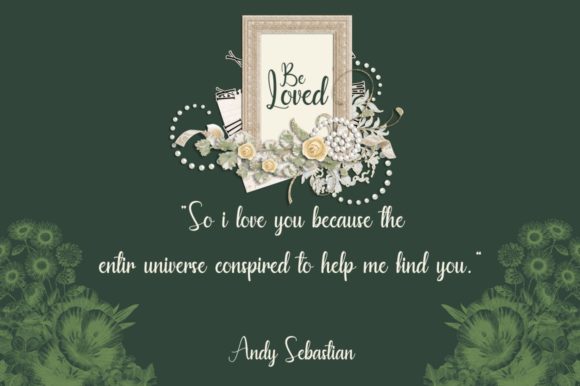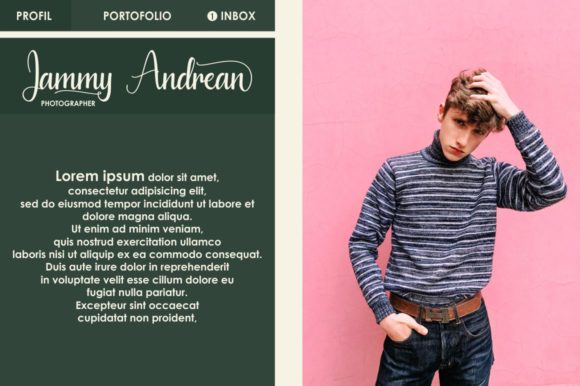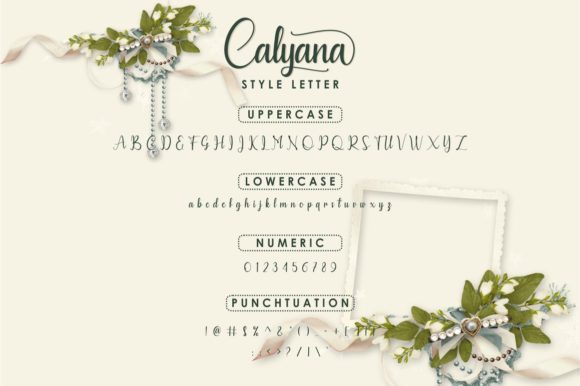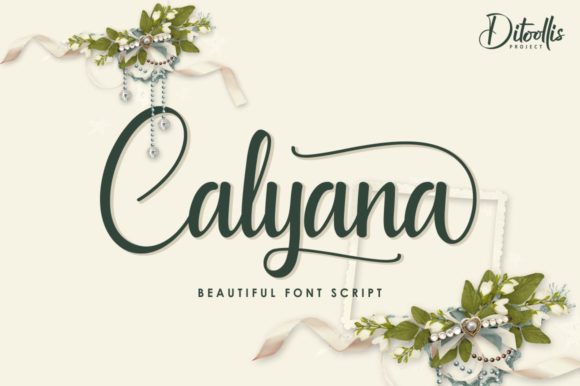
The Moment of Design Epiphany: When Calyana Font Stole My Heart
I still remember the project like it was yesterday. I was working on a wedding invitation design for a client who wanted something elegant, yet playful. I had spent hours browsing through font libraries, but nothing seemed quite right. That was when I stumbled upon Calyana Font. Its radiant script and authentic swashes immediately caught my attention, and I knew I had found the perfect fit. In this article, I’ll share my love for Calyana Font, its features, and how to make the most of it in your designs.
The Good: Why Calyana Font Stands Out
- ✨ Elegant script with authentic swashes that add a touch of sophistication to any design
- ✅ Highly versatile and suitable for various design projects, from wedding invitations to branding and packaging
- 💫 Beautifully crafted to ensure excellent readability, even at smaller font sizes
The Not-So-Perfect: A Few Quirks to Consider
- 🤔 Some users might find the font a bit over-the-top for certain projects, such as minimalist designs
- ⚠️ Limited availability of certain characters and glyphs in non-OpenType compatible software
The Story Behind Calyana Font: Designer Inspiration
Calyana Font was crafted with love and attention to detail by a team of skilled typographers. Their goal was to create a stunning script font that would evoke the feeling of luxury and sophistication. Inspired by traditional calligraphy and modern design trends, Calyana Font was born to add a touch of elegance to any design project.
Q: What makes Calyana Font unique?
A: Calyana Font stands out with its authentic swashes and elegant script, making it perfect for designs that require a touch of sophistication.
Q: Is Calyana Font suitable for body text?
A: While Calyana Font is beautiful, it’s recommended to use it for headlines or titles. Its elegant script and swashes might not be suitable for large blocks of body text.